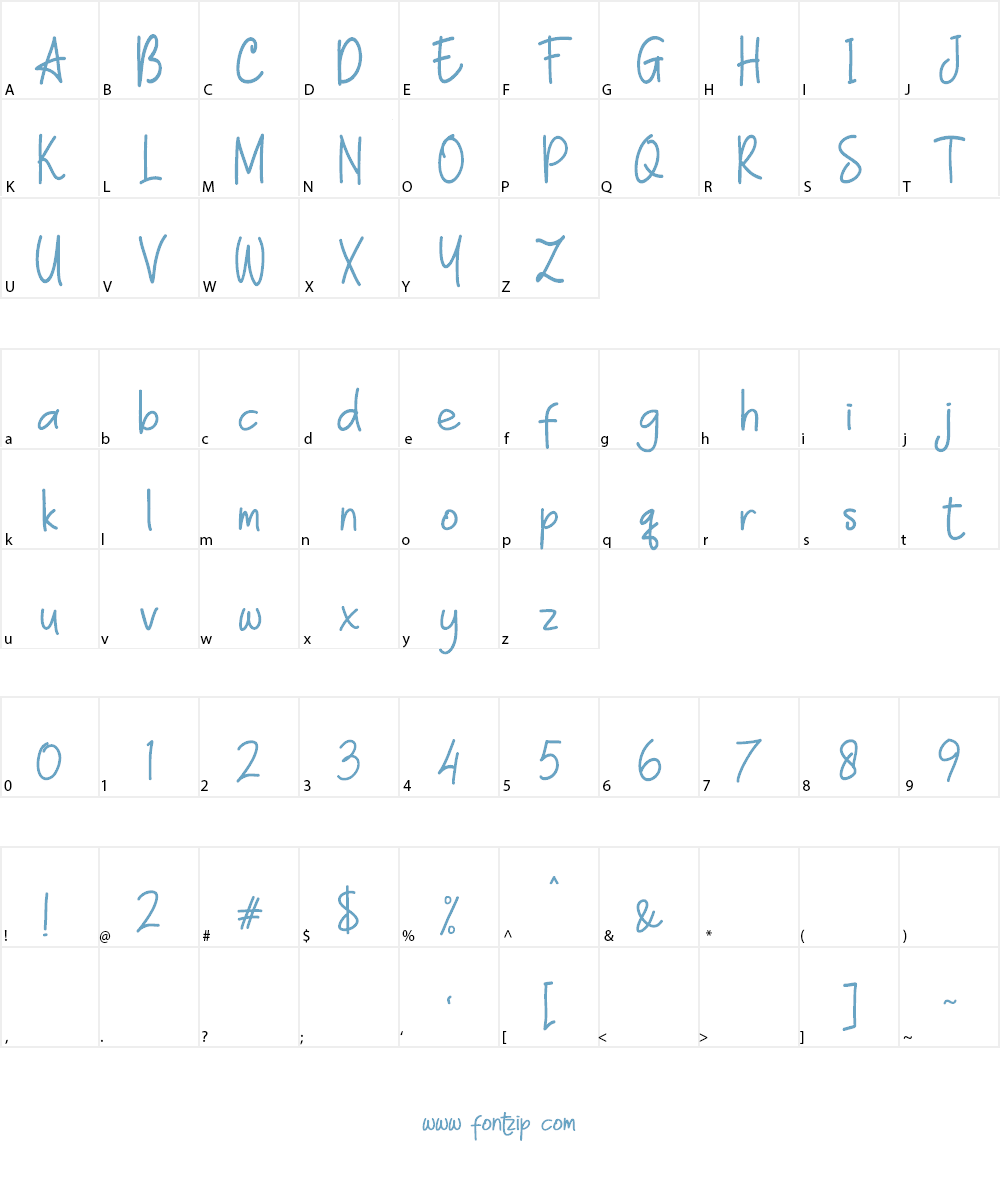
We proud presenting our new font.
It's name Hai Butterfly.
Hai Butterfly is a beautiful font duo. It is a cute a fun font. But can also be used invitation, logos & branding , photography, advertisements, watermark, social media posts, product packaging, product designs, label, wedding designs, stationery, special events or anything that need handwriting taste.
Hai Butterfly font duo has a script and sans. Also more than 500 cliparts bonus.